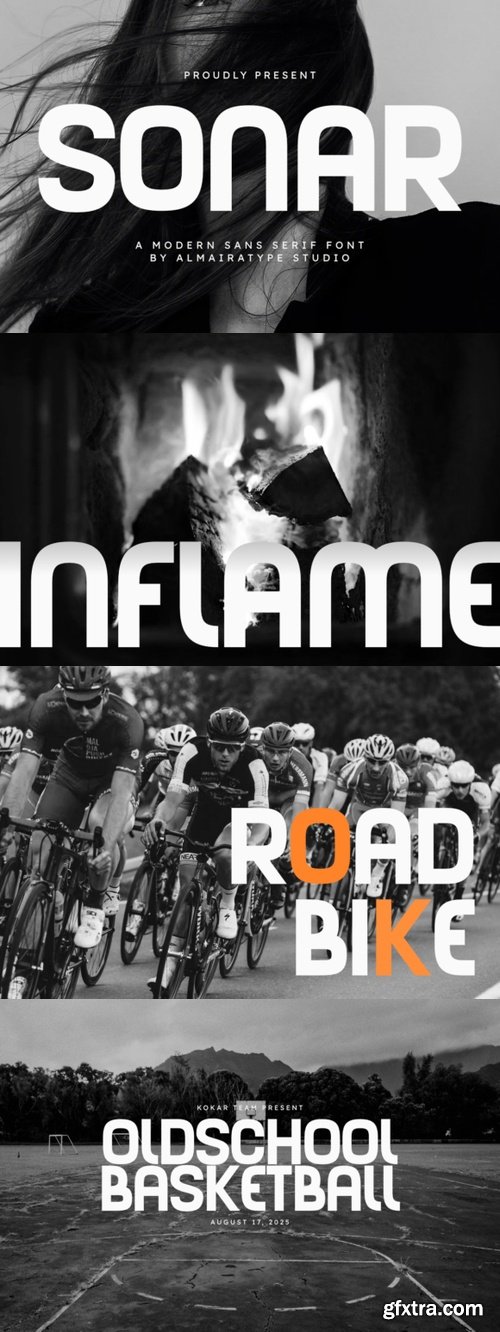
Sonar Font
- Sonar is a modern sans serif font. This font is perfect for delivering a sleek, sophisticated, and impactful statement in all your design projects, making it ideal for designs that embody a cutting-edge aesthetic and strong visual presence. Its clean lines, bold forms, and harmonious proportions are designed to resonate with a sense of contemporary elegance and unwavering confidence. Whether you’re working on striking logos, impactful fashion branding, creating compelling headlines for digital platforms, designing sophisticated corporate identities, or crafting dynamic social media graphics, Sonar is your go-to typeface! It ensures your message is not just seen, but powerfully felt with an undeniable force and authority. Embrace its commanding minimalist appeal to create designs that truly stand out and reflect a refined, modern vision.